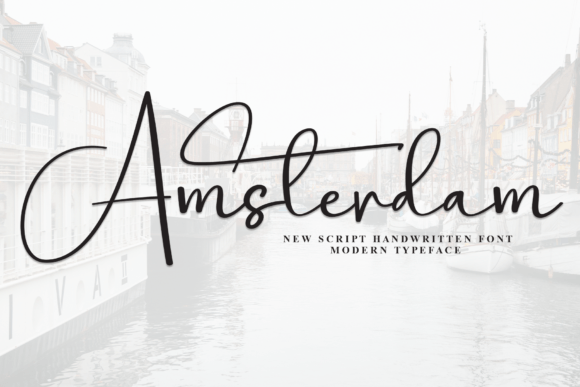
The Amsterdam Font: A Stylish and Flowing Script for Creative Designs
I’ll never forget the time I was working on a wedding invitation project, and my client asked for a font that was both elegant and playful. I scoured the internet, tried out countless fonts, but nothing seemed quite right. That was until I stumbled upon the Amsterdam font. Its beautiful, flowing script and elegant curves immediately caught my eye, and I knew I had found the perfect fit. In this article, I’ll share my experience with the Amsterdam font, its features, and how to make the most of it in your designs.
A Personal Review of Amsterdam Font
- ✨ Elegant curves and smooth lines that give it a beautiful, handwriting-like feel
- ✅ Perfect for invitations, logos, and creative designs that require a touch of sophistication
- 💫 Simple yet eye-catching, making it versatile for various design projects
While the Amsterdam font is a stunning addition to any design project, there are a few things to keep in mind:
- ⚠️ It may not be the best choice for body text or long paragraphs, as its elegant curves and flowing lines can be difficult to read in large quantities
- 🤔 Some users may find that the font’s script style can be a bit tricky to pair with other fonts, requiring some experimentation to find the perfect combination
- Experiment with OpenType features, such as glyphs and stylistic alternates, to add unique touches to your design
The Designer Inspiration Behind Amsterdam Font
The Amsterdam font was inspired by the city’s rich history and cultural heritage. Its elegant curves and flowing lines are reminiscent of the city’s beautiful canals, historic architecture, and vibrant art scene. The font’s designer aimed to capture the essence of Amsterdam’s unique blend of tradition and modernity, resulting in a font that’s both timeless and contemporary.
Q: What type of projects is the Amsterdam font best suited for?
A: The Amsterdam font is perfect for invitations, logos, and creative designs that require a touch of elegance and sophistication.
Q: Can I use the Amsterdam font for body text or long paragraphs?
A: While the Amsterdam font is beautiful, it’s not ideal for body text or long paragraphs. Its elegant curves and flowing lines can be difficult to read in large quantities.
Q: Is the Amsterdam font suitable for digital designs?
A: Yes, the Amsterdam font is suitable for digital designs, including social media graphics, website headers, and email marketing campaigns.